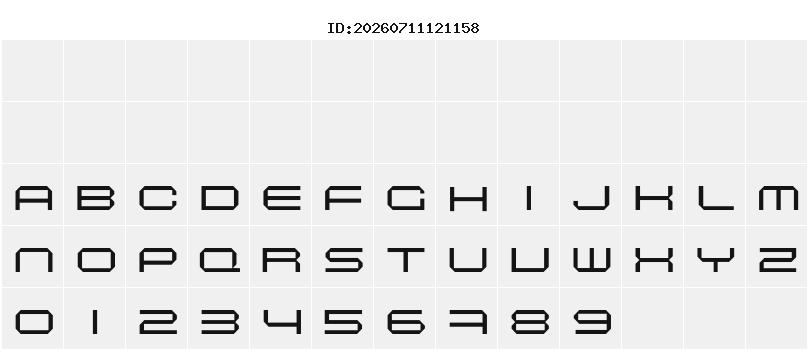
• Font Name: Maschinen
• Font Style: ExtendedLight
• Full Font Name: Maschinen ExtendedLight
About Maschinen.ttf
Maschinen.ttf is a modern, elegant sans-serif font designed for ultimate readability and visual harmony. Perfect for branding, headlines, web design, and print materials.